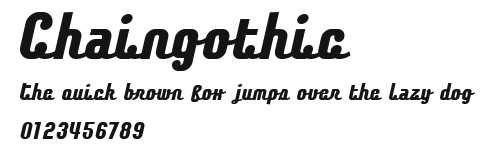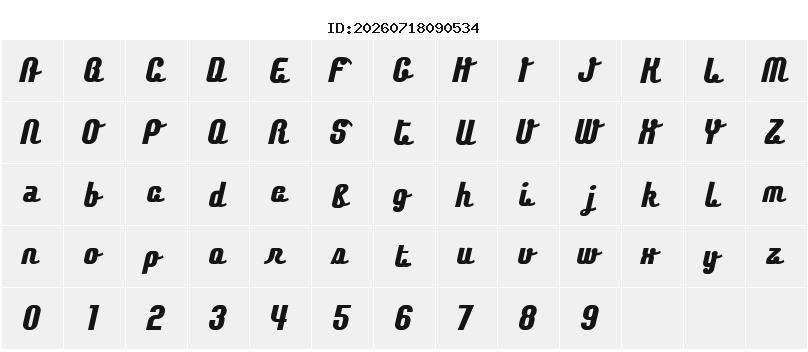
• Font Name: Chaingothic
• Font Style: ExtraBold
• Full Font Name: Chaingothic ExtraBold
Chaingothic.ttf is a modern, elegant sans-serif font designed for ultimate readability and visual harmony. Perfect for branding, headlines, web design, and print materials.